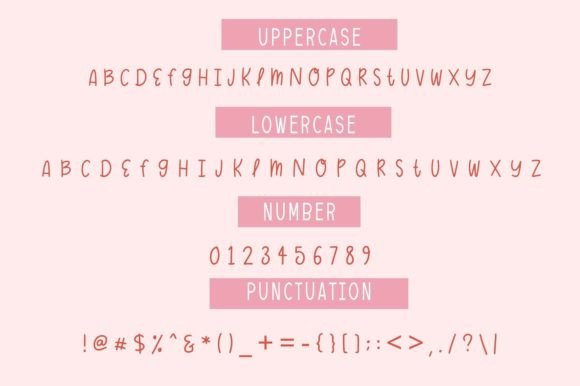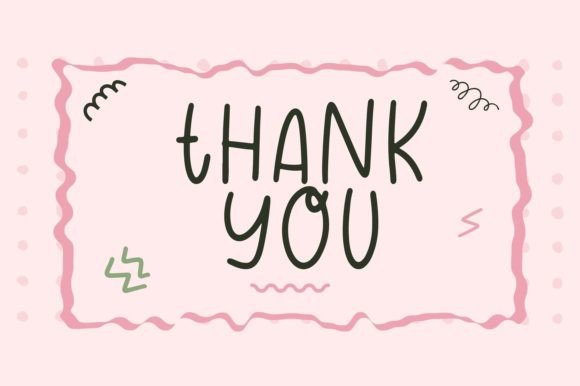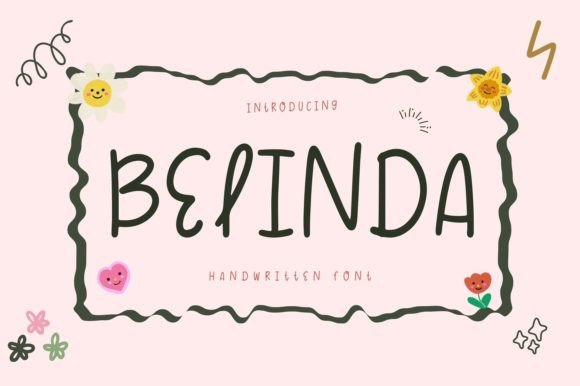
Discover the Charm of Belinda Font: A Cute and Handwritten Delight
Are you on the hunt for a font that embodies playfulness and authenticity? Look no further than the Belinda Font! This adorable, handwritten font is perfect for designers and crafters seeking to add a touch of whimsy to their projects. With its light and airy characters, Belinda is an incredibly versatile font suitable for a wide range of design applications.
The Characteristics of Belinda Font
Belinda Font is a beautifully crafted, handwritten font that exudes a sense of fun and friendliness. Its lightness makes it an excellent choice for designs where you want to convey a sense of approachability and playfulness. Whether you’re working on a blog post, logo, branding materials, ads, invitations, greeting cards, planners, photo albums, or decorations, Belinda Font is the perfect companion.
Why Choose Belinda Font?
- Playfulness: Belinda Font is designed to bring a smile to your audience’s faces. Its carefree and spontaneous feel makes it ideal for projects that require a youthful and vibrant touch.
- Authenticity: In a world of generic fonts, Belinda stands out with its unique, handcrafted charm. It adds a personal touch to your designs, making them feel more genuine and relatable.
- Versatility: From digital platforms to print materials, Belinda Font adapts seamlessly to various mediums. Its lightness ensures that it remains legible and aesthetically pleasing across different sizes and resolutions.
Endless Design Possibilities with Belinda Font
The versatility of Belinda Font is one of its most compelling features. Here are some design projects where Belinda can make a significant impact:
- Blog Posts: Enhance your blog’s visual appeal with Belinda Font. Use it for headings, subheadings, or even the entire body text to create a friendly and inviting atmosphere.
- Logos and Branding: A unique logo can set your brand apart. Belinda Font can help you achieve that with its distinctive, handcrafted look.
- Ads and Marketing Materials: Capture your audience’s attention with ads that feature Belinda Font. Its playful nature makes it perfect for promotional materials that aim to engage and entertain.
- Invitations and Greeting Cards: For personal or professional events, Belinda Font can add a warm, personal touch to your invitations and greeting cards.
- Planners and Photo Albums: Make your planners and photo albums more visually appealing with Belinda Font. It’s an excellent choice for titles, captions, and other decorative elements.
Tips for Using Belinda Font Effectively
To get the most out of Belinda Font, consider the following tips:
- Mix and Match: Don’t be afraid to combine Belinda Font with other fonts. A playful handwritten font like Belinda can be paired with a more straightforward font for contrast.
- Adjust Size and Color: Experiment with different sizes and colors to make your text stand out. Belinda Font’s lightness means it can be scaled up or down without losing its charm.
- Use it Sparingly: While Belinda Font is incredibly versatile, using it sparingly can make it more impactful. Use it for headings or key messages to draw attention.